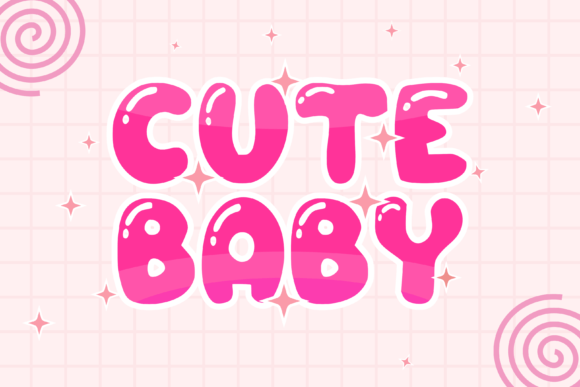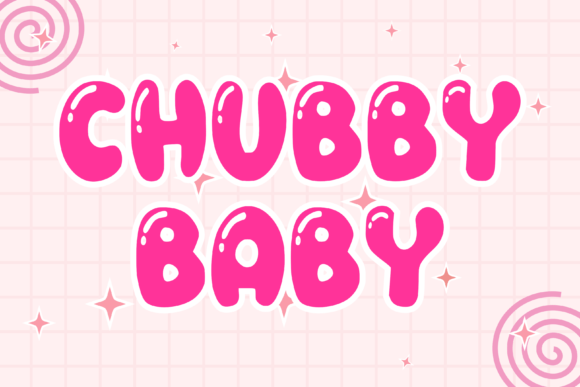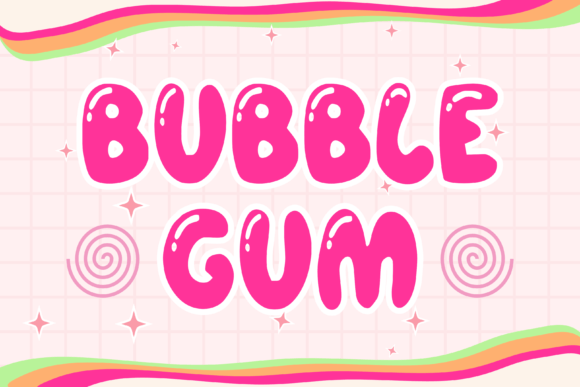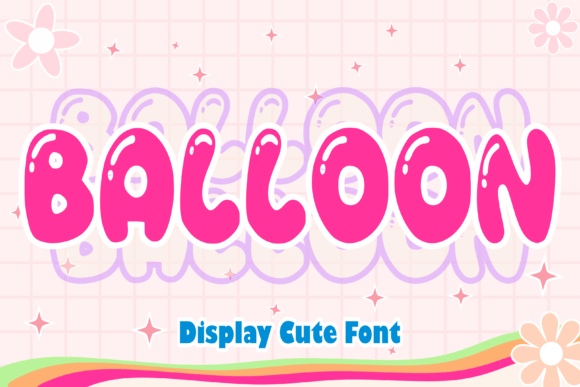
Designing with Delight: The Joy of Balloon Font
Who among us hasn’t experienced that magical moment when a spark of creativity strikes? The moment when a new project is born, and the possibilities seem endless. It’s the thrill of bringing an idea to life, of watching it grow and evolve. And for designers, this moment is especially precious, as it’s where the art of creating something truly special begins.
One tool that can help bring this magic to life is the Balloon Font, a delightful bubble font that’s perfect for kids’ projects and adds a touch of whimsy to any design. With its cheerful contours and adorable springy appeal, this font is a must-have for designers looking to create engaging and fun content. Whether it’s a birthday celebration or a party invitation, the Balloon Font is sure to delight and captivate.
Balloon Font Key Features
- Font Family: Balloon Font is a sans-serif font family designed to resemble balloons.
- Character Count: The font family includes a wide range of characters, including uppercase and lowercase letters, numbers, and punctuation marks.
- Unique Characteristics: The font’s balloon-like design elements, such as rounded edges and smooth curves, give it a playful and whimsical feel.
Designer Review: Balloon Font
Overall, I think the Balloon Font is a fun and playful addition to any design project. ✨ The rounded shapes and varying balloon sizes make for a visually interesting and engaging typeface. I appreciate how the font is perfect for creating whimsical and childlike designs, which can be especially useful for branding and advertising materials.
- The font’s customizability is a major strength. With various balloon sizes and styles, you can easily create a unique look that suits your design goals.
- The font is highly legible, even at smaller font sizes. This makes it a great choice for body text and other areas where readability is crucial.
However, I do have some reservations about the font’s limitations. ⚠️ While the font is great for playful designs, it may not be the best choice for more formal or professional projects. Additionally, the font’s customizability can also be a double-edged sword – with so many options, it can be overwhelming to choose the right combination of balloons and styles.
Overall, I think the Balloon Font is a solid choice for designers who want to add a touch of whimsy to their projects. While it may not be suitable for every design task, it’s a fun and versatile font that can add a lot of personality to your work.
Balloon Font is commonly used in:
- Children’s birthday cards and gifts
- Food and drink menus